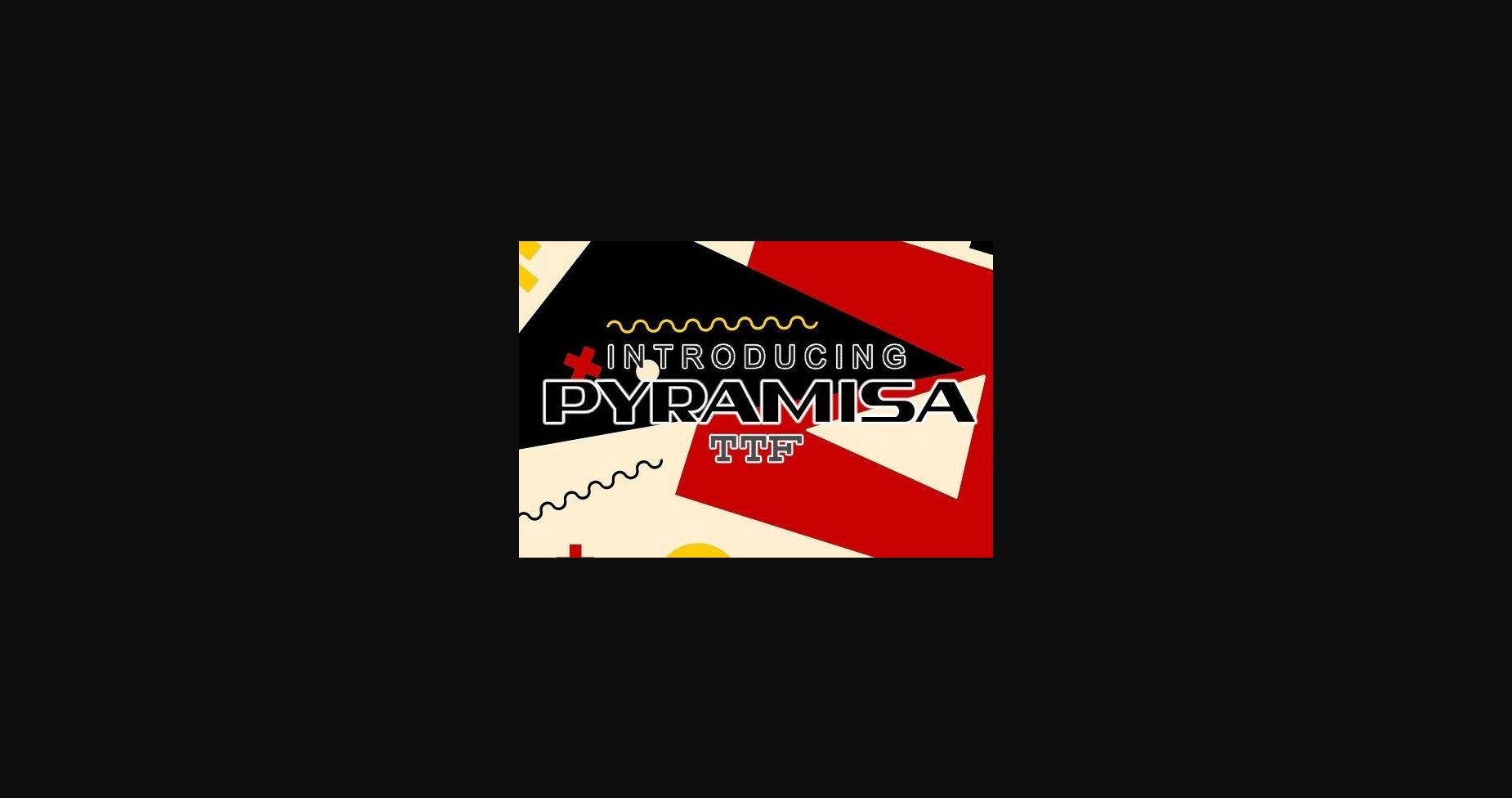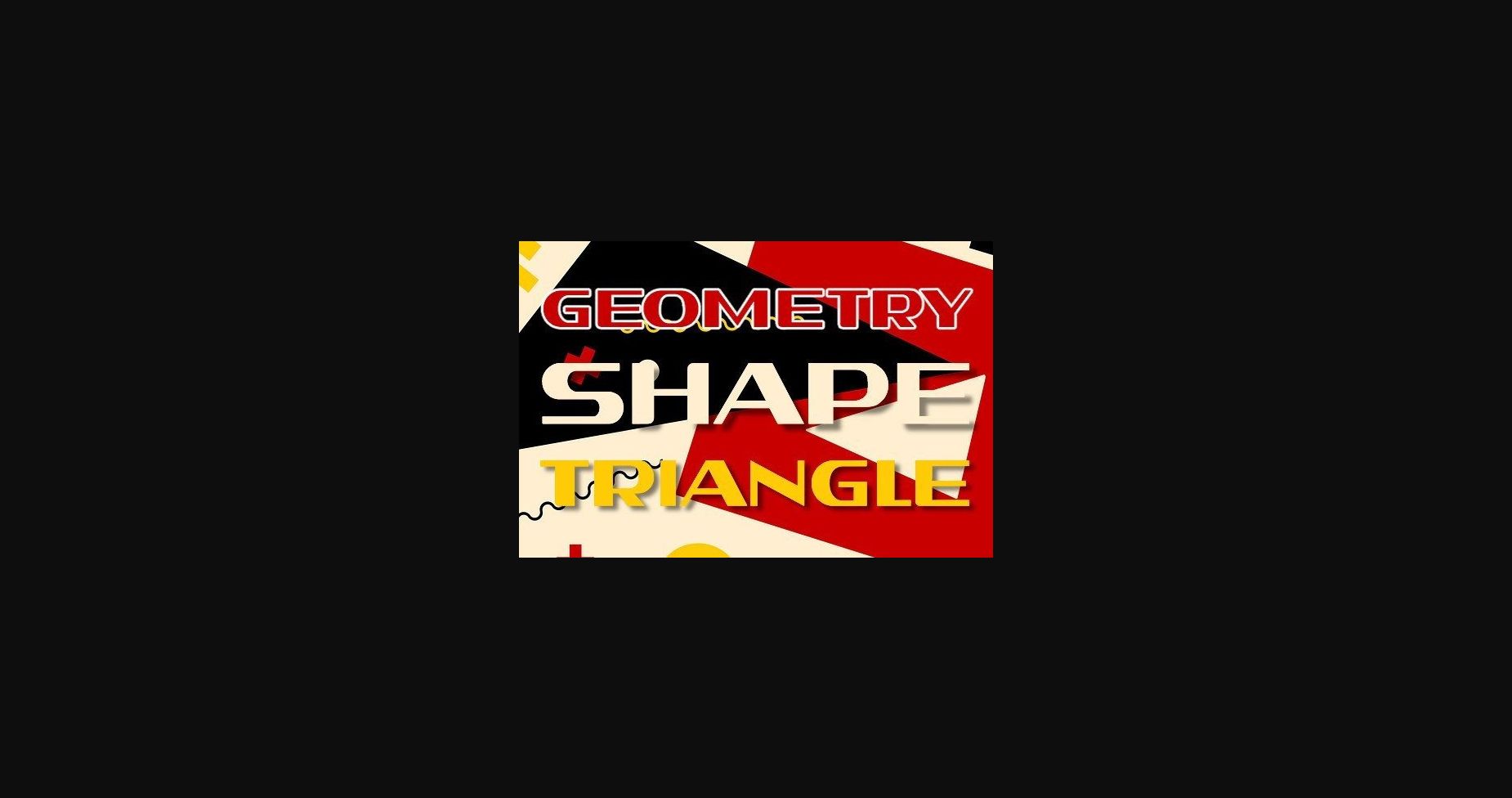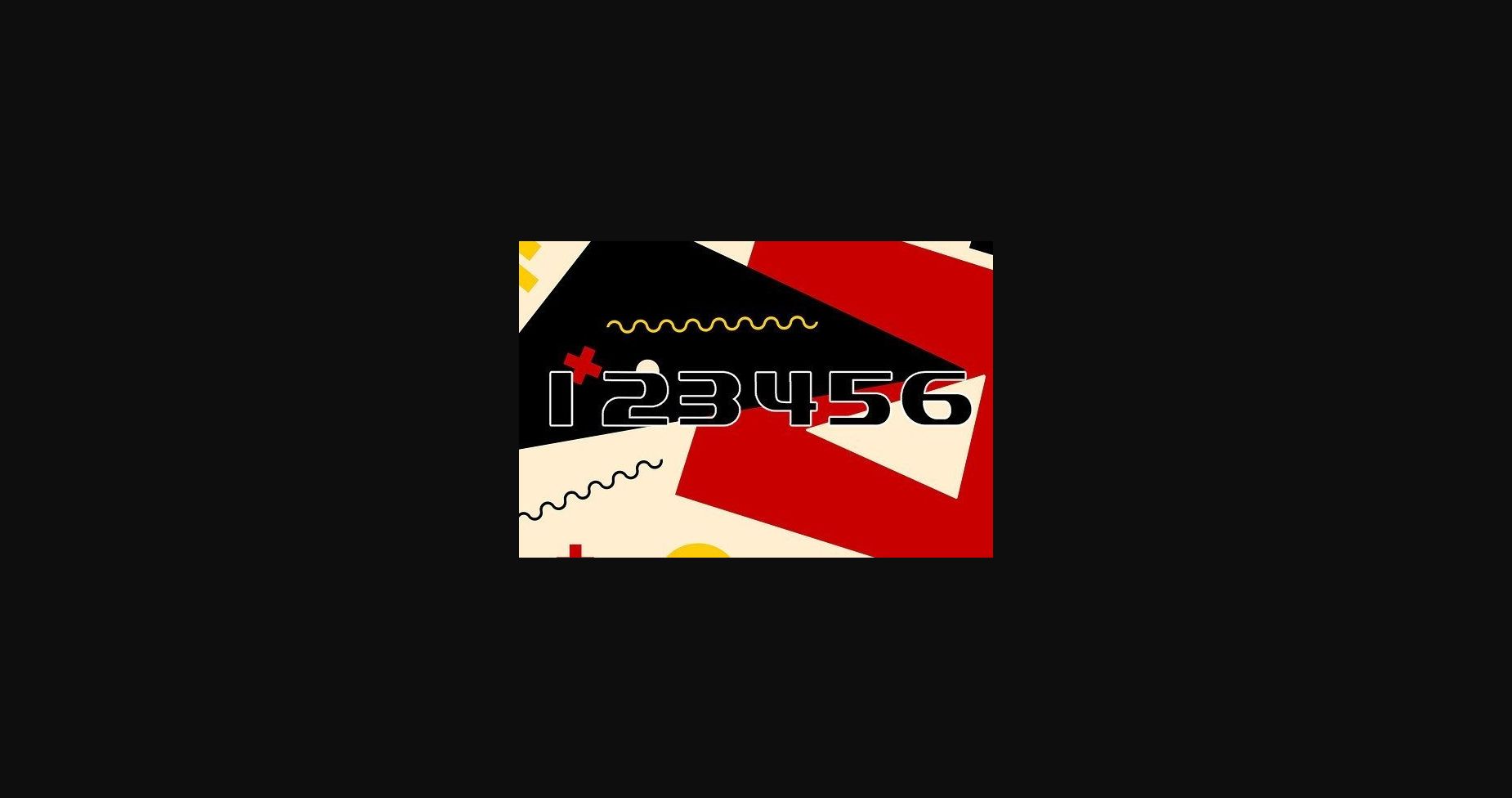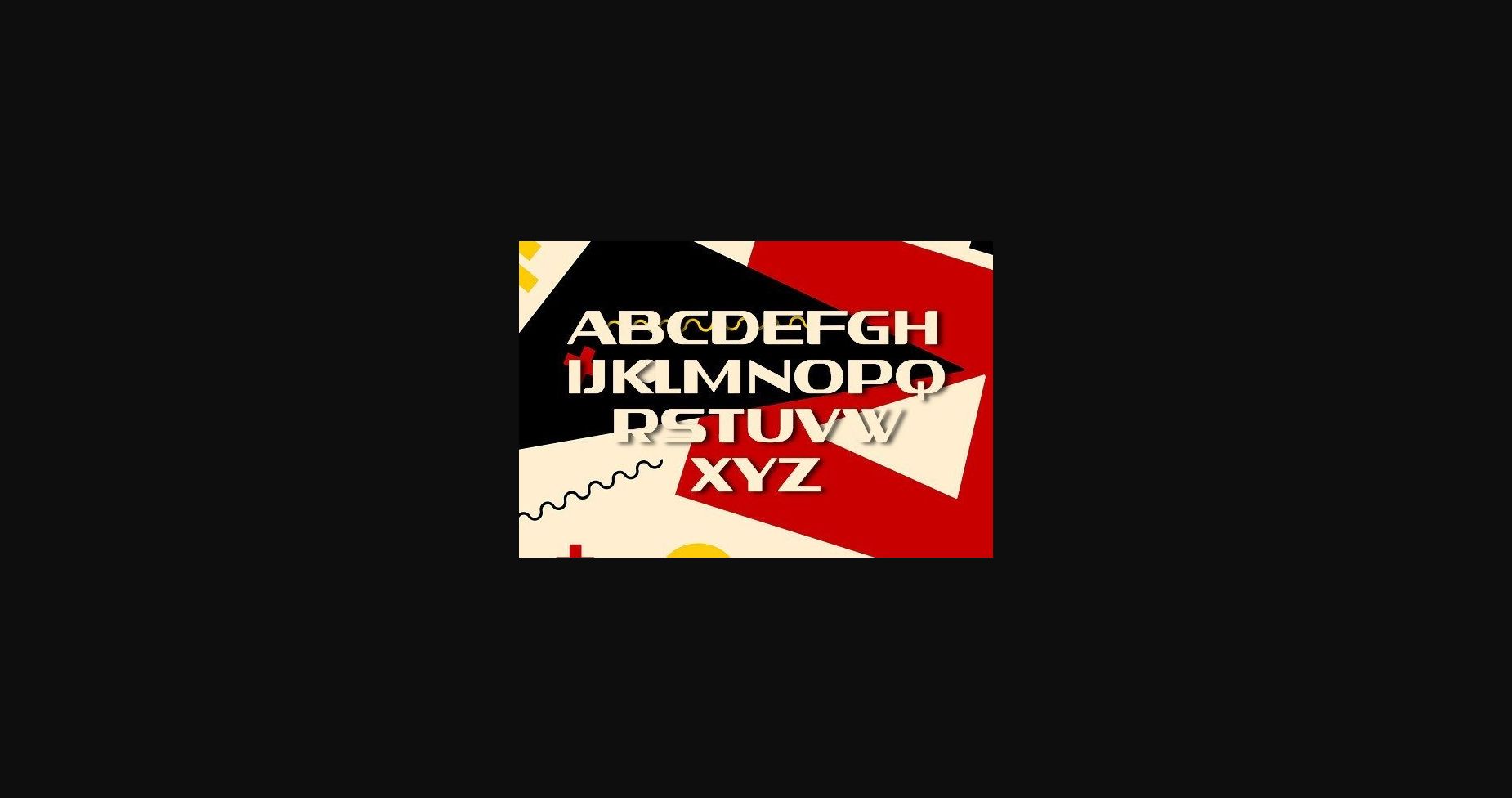
HomeSans Serif FontsPyramisa Font Sans Serif Fonts Pyramisa Font FacebookXPinterestWhatsApp 1 of 6 ... Pyramisa Font Poster 2... Pyramisa Font Poster 3... Pyramisa Font Poster 4... Pyramisa Font Poster 5... Pyramisa Font Poster 6... About Pyramisa Font Pyramisa is a sharp Sans Serif typeface with a catchy appearance. This typeface will look awesome on any poster, flyer, or print. DOWNLOAD NOW People also explored Sweet Candy Font Brush Textured Font Bundle Vol. 5 Valentine Fantasy Font Hello Signature Font North Pole Font Monday Font Happy Sans Font Have Faith Font Bandung Font 340 0 TagsPyramisa Font Previous articleEverywhen FontNext articleVincent Font LEAVE A REPLY Cancel reply Comment: Please enter your comment! Name:* Please enter your name here Email:* You have entered an incorrect email address! Please enter your email address here Website: Save my name, email, and website in this browser for the next time I comment. Personal Use Free Ayam Bakar Personal Use Free Read more about this font Silver Bullet Personal Use Free Read more about this font Anggiana Personal Use Free Read more about this font Recharge Bold Personal Use Free Read more about this font BLOG Best Fonts for T-Shirt Design – Top 2025 Picks In 2025, t-shirt design has become more than just fashion—it's a form of self-expression. Whether you're... Fonts That Capture the Spirit of New York City Modern Sans-Serif Fonts That Brands Love in 2025 Free vs Paid Fonts: Why Investing in Premium Fonts Is Worth It